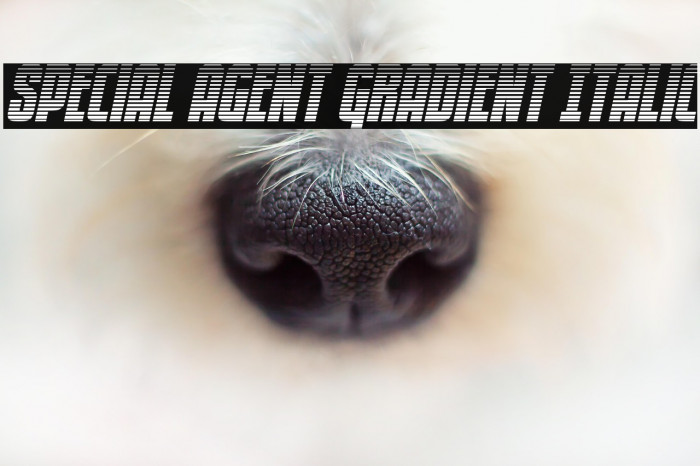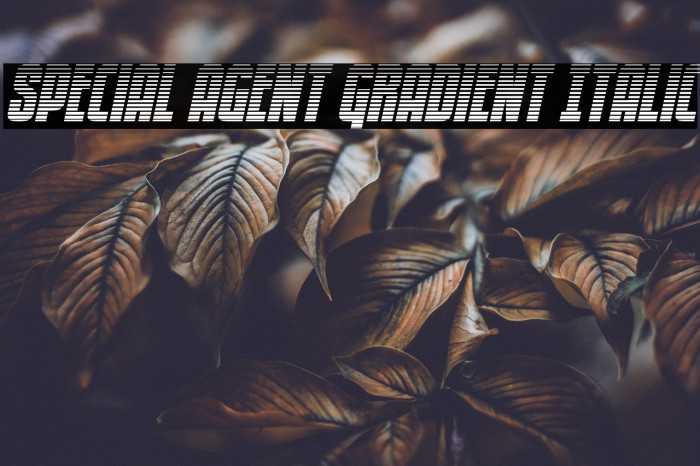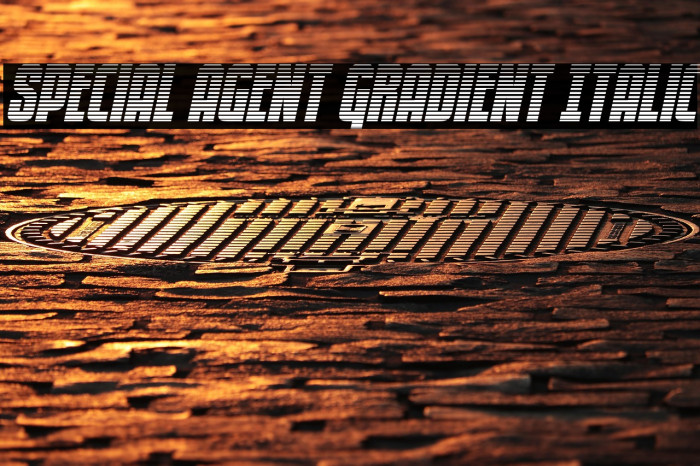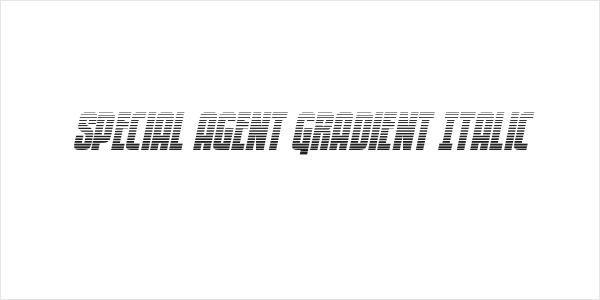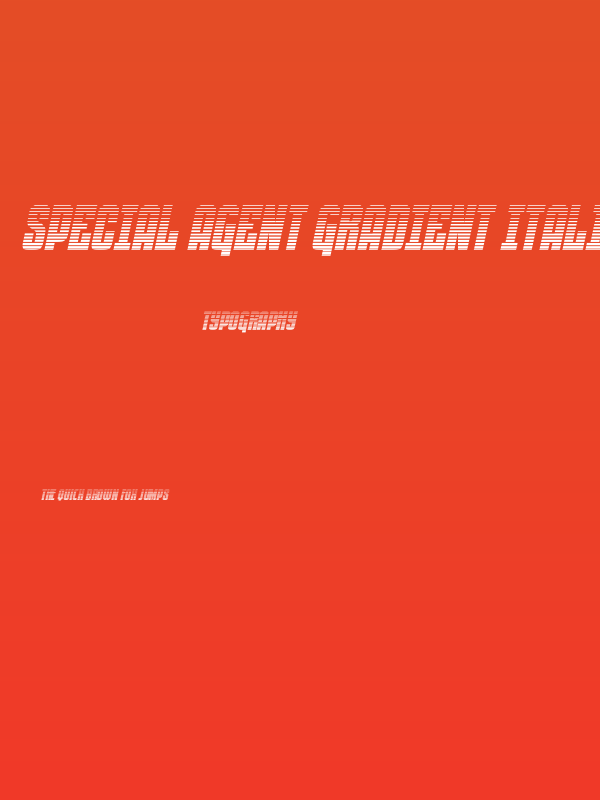
Special Agent Gradient Italic Font
Special Agent Gradient Italic Description
This font features a bold, italicized style with a distinctive gradient effect that gives it a dynamic and modern appearance. The characters are composed of horizontal lines that create a sense of movement and energy, making it ideal for attention-grabbing designs. The uppercase and lowercase letters, along with numbers and special characters, maintain a consistent slant and spacing, enhancing its cohesive look. The gradient effect adds depth and dimension, making it suitable for futuristic or tech-themed projects. Its bold weight and italic style contribute to its striking presence, while the character spacing remains tight, ensuring a compact and impactful visual impression.
| Proposed Projects | Ideal for use in technology branding, futuristic posters, video game titles, and dynamic advertising campaigns. |